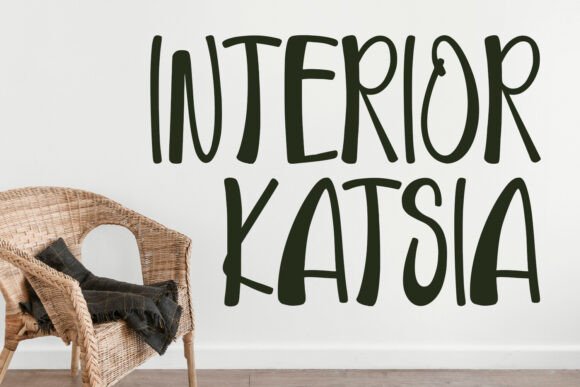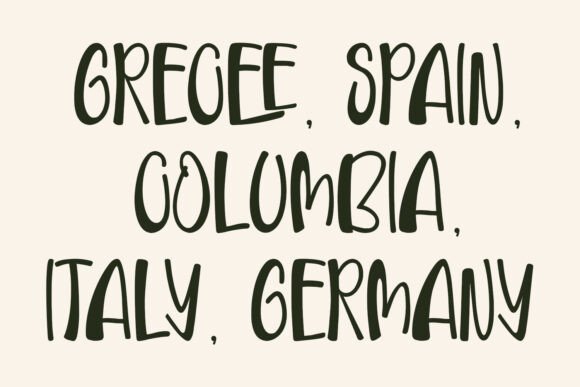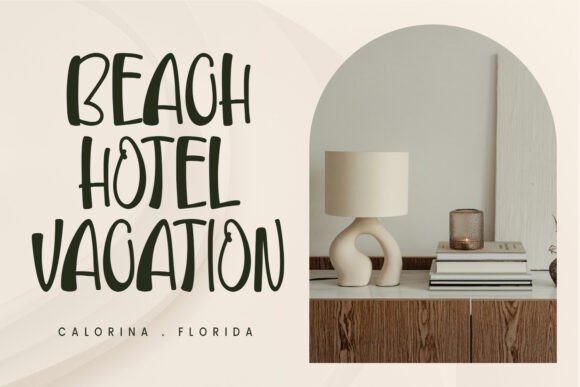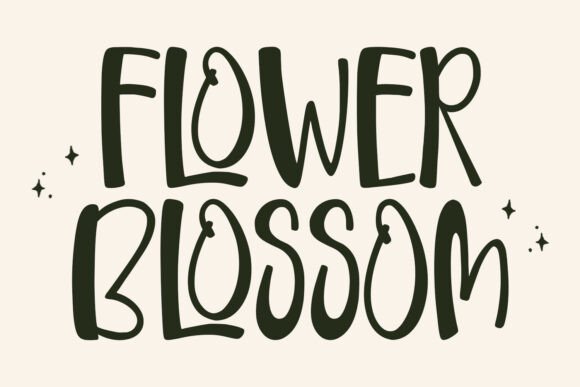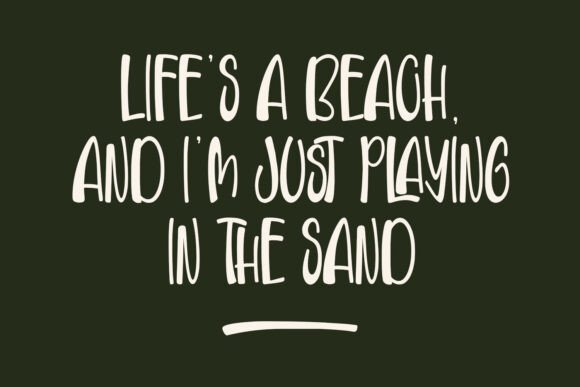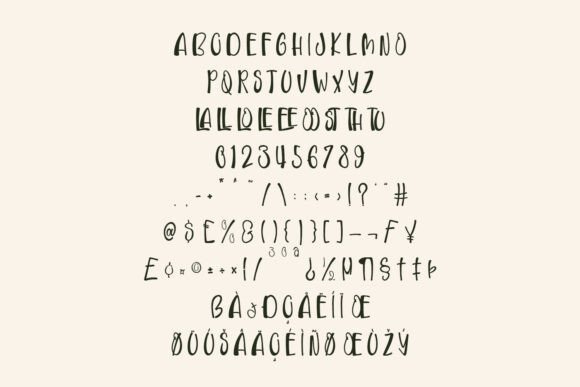
Bloerd Xlospun Font: Adding a Touch of Whimsy to Your Designs
Are you looking for a font that can bring a dash of magic to your designs? Look no further than Bloerd Xlospun, a delightful kids’ display font that’s perfect for a variety of creative projects. With its tall, playful characters and subtle whimsical flourishes, this font is sure to captivate your audience and add a touch of wonder to your work.
The Magic of Bloerd Xlospun
Bloerd Xlospun is a cute kids’ display font with a magical twist. Its unique design features tall, playful characters that are sure to delight children and adults alike. The font’s subtle whimsical flourishes add a touch of sophistication and elegance, making it perfect for a wide range of applications. Whether you’re designing a children’s book, creating birthday party invitations, or developing playful product packaging, Bloerd Xlospun is the perfect choice.
Bloerd Xlospun is a versatile font that can be used in a variety of creative projects. Here are just a few ideas to get you started:
- Children’s Books: Add a touch of magic to your children’s book with Bloerd Xlospun. The font’s playful characters and whimsical flourishes are sure to captivate young readers and bring your story to life.
- Birthday Party Invitations: Create custom birthday party invitations that are as unique as the celebration itself. Bloerd Xlospun’s playful design is sure to get the party started.
- Playful Product Packaging: Add a touch of whimsy to your product packaging with Bloerd Xlospun. The font’s magical design is sure to make your product stand out on store shelves.
- Crafting and DIY Projects: Bloerd Xlospun is also perfect for crafters and DIY enthusiasts. Use the font to create custom signs, banners, and other decorative items that add a touch of personality to your project.
Why Choose Bloerd Xlospun?
So why choose Bloerd Xlospun for your next creative project? Here are just a few reasons:
- Unique Design: Bloerd Xlospun’s unique design sets it apart from other fonts. Its tall, playful characters and subtle whimsical flourishes make it perfect for creative projects that require a touch of magic.
- Versatility: Bloerd Xlospun is a versatile font that can be used in a wide range of applications. Whether you’re designing a children’s book or creating custom product packaging, this font is sure to deliver.
- Easy to Read: Despite its playful design, Bloerd Xlospun is easy to read, making it perfect for body text and headings.
Tips for Using Bloerd Xlospun
Here are a few tips for using Bloerd Xlospun in your next creative project:
- Pair with Other Fonts: Bloerd Xlospun pairs well with other fonts, especially those with a more traditional or serif design. Experiment with different font combinations to find the perfect look for your project.
- Use for Headings and Titles: Bloerd Xlospun is perfect for headings and titles. Use it to add a touch of magic to your project’s typography.
- Experiment with Colors: Bloerd Xlospun looks great in a variety of colors. Experiment with different color combinations to find the perfect look for your project.
Bloerd Xlospun is a delightful kids’ display font that’s perfect for creative projects that require a touch of magic. With its unique design, versatility, and ease of use, this font is sure to captivate your audience and add a touch of wonder to your work. Whether you’re a designer, crafter, or DIY enthusiast, Bloerd Xlospun is a great choice for your next project.